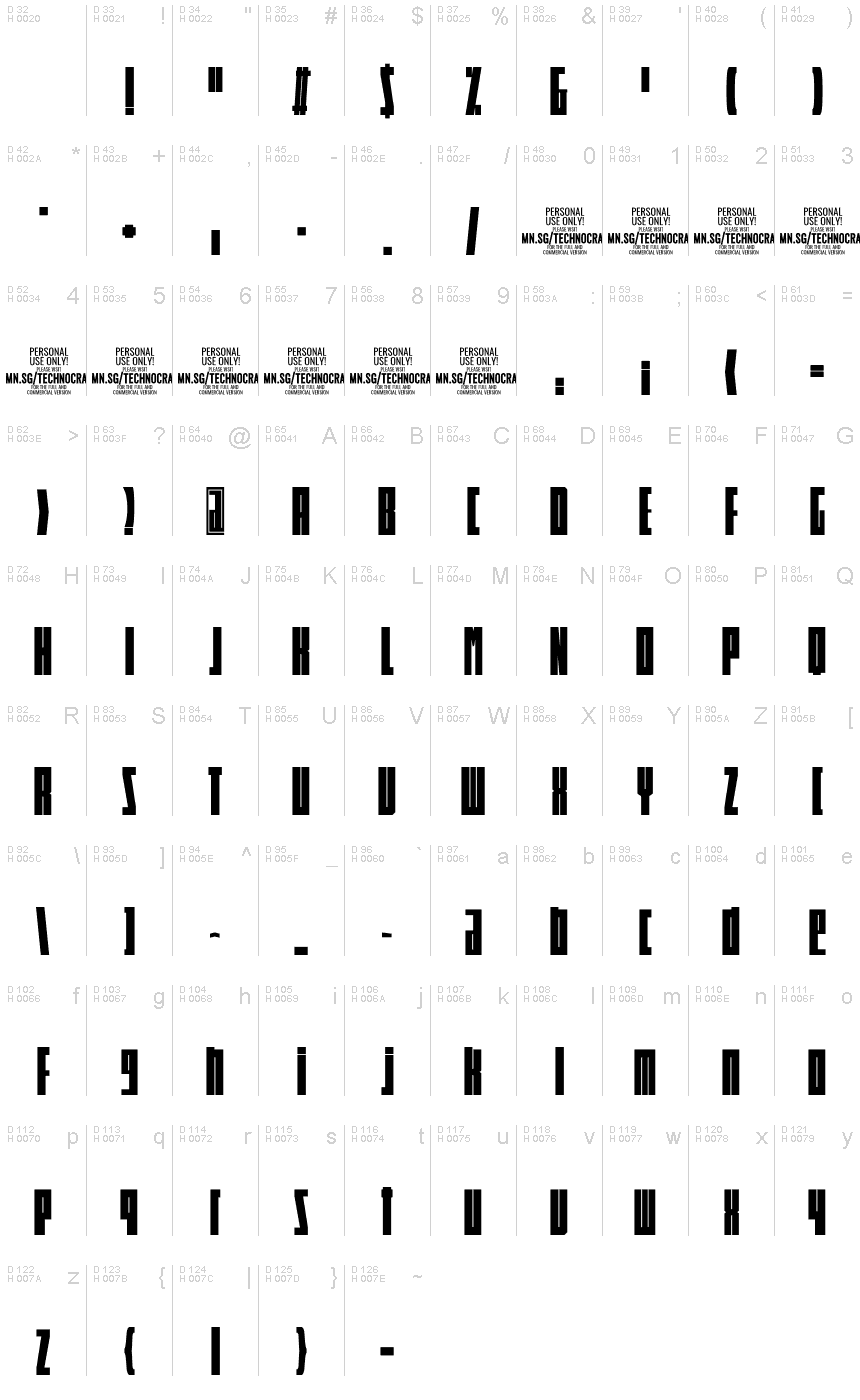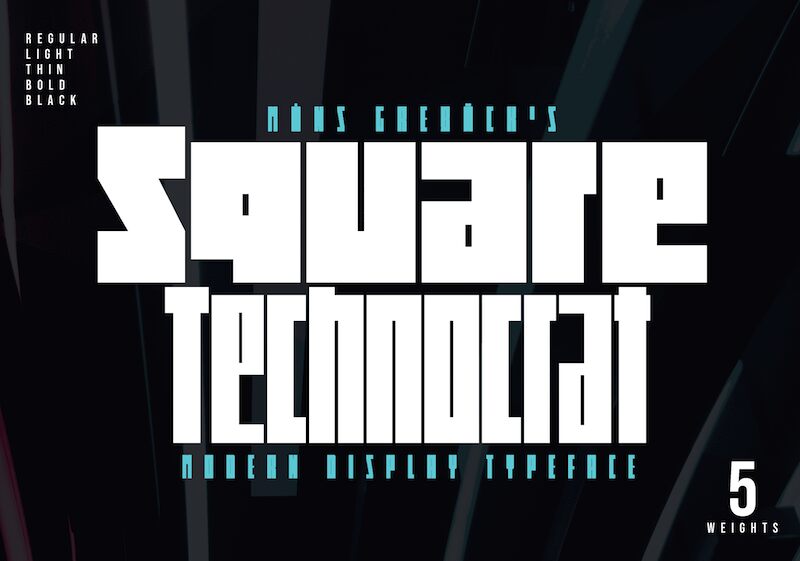
Square Technocrat PERSONAL Light
Square Technocrat Light is a sleek and futuristic display font designed by Mans Greback.
With its extra-condensed width and sharp, geometric shapes, this techno-inspired typeface is ideal for projects that demand a modern and structured aesthetic. Whether you're creating logos, headlines, or branding materials, Square Technocrat Light will bring a strong and stable presence to your designs.
Embodying the essence of contemporary architecture and cube-like forms, this font family is perfect for conveying a sense of sophistication and forward-thinking innovation.